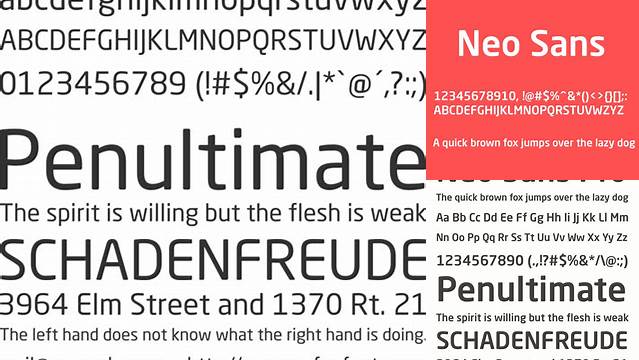
Neo Sans Font Free: Top Alternatives & Usage Guide
Neo Sans is a widely recognized and respected typeface, known for its clean, modern, and highly legible design. It has become a favorite among designers for a variety of applications, from corporate branding to web design. However, its commercial licensing can be a barrier for some users. In this comprehensive guide, we will explore the characteristics of Neo Sans, discuss its typical uses, and, most importantly, delve into free and accessible alternatives that capture its essence.
Understanding Neo Sans: Design and Applications
Neo Sans, with its neutral and contemporary aesthetic, is a sans-serif typeface that exudes professionalism and clarity. This makes it a versatile choice for a broad range of design projects. Its clean lines and open forms contribute to excellent readability, whether in print or on digital screens. The font family includes various weights and styles, providing designers with flexibility to create visual hierarchy and emphasis within their designs.
Key Characteristics of Neo Sans
When we talk about Neo Sans, several key design elements contribute to its unique appeal. First and foremost is its geometric structure. The letterforms are based on simple shapes, giving the font a clean and modern appearance. Secondly, the consistent stroke weight throughout the characters enhances readability. The open counters (the enclosed or partially enclosed negative space in letters like 'a', 'e', 'p', and 'd') also play a crucial role in making the font highly legible, even at smaller sizes. Finally, Neo Sans has a relatively tall x-height, which refers to the height of lowercase letters relative to the cap height. This feature further improves readability and gives the font a balanced and harmonious look.
Common Applications of Neo Sans
Considering its characteristics, Neo Sans finds applications in a wide array of design contexts. In the realm of corporate branding, its professional and clean appearance makes it a popular choice for logos, business cards, and other identity materials. Many companies use Neo Sans to project an image of modernity and reliability. In the field of web design, the font's excellent legibility on screens makes it ideal for body text, headlines, and navigation menus. Its versatility ensures a seamless user experience across various devices and screen sizes. In the publishing industry, Neo Sans is often used for magazines, books, and reports, where readability is paramount. Its clear and neutral design ensures that the text is easy on the eyes, allowing readers to focus on the content. Furthermore, in environmental design, Neo Sans is employed for signage and wayfinding systems, where clear communication is essential. Its distinct letterforms and excellent readability make it effective in guiding people in various environments.
The Need for Free Alternatives
Top Free Alternatives to Neo Sans
Finding a free font that perfectly matches Neo Sans can be challenging, but several excellent alternatives capture its essence and offer similar characteristics. These fonts provide a balance of modern aesthetics, legibility, and versatility, making them suitable for a wide range of design projects. Let's explore some of the top contenders.
1. Montserrat
Montserrat is a widely acclaimed sans-serif typeface designed by Julieta Ulanovsky. Inspired by the urban typography of the Montserrat neighborhood in Buenos Aires, it embodies a modern and geometric design, much like Neo Sans. Its clean lines, balanced proportions, and excellent readability make it a popular choice for both web and print projects. Montserrat is available in a variety of weights, from thin to black, providing designers with ample flexibility to create visual hierarchy and emphasis. Whether you're working on a website, a logo, or a printed brochure, Montserrat offers a versatile and elegant solution. Its open-source license allows for free usage in personal and commercial projects, making it a highly accessible alternative to Neo Sans.
2. Open Sans
Open Sans, designed by Steve Matteson, is another fantastic free alternative. This humanist sans-serif typeface was commissioned by Google and is known for its neutral yet friendly appearance. Open Sans is optimized for legibility across print, web, and mobile interfaces, making it an excellent choice for body text and user interfaces. Its open forms and clear letter shapes ensure that text remains readable even at small sizes. The font family includes a range of weights and styles, including italic versions, giving designers the tools they need to create visually engaging and accessible designs. Open Sans is released under the Apache License 2.0, which permits free use, modification, and distribution, making it a practical and cost-effective alternative to Neo Sans.
3. Lato
Lato, designed by Ćukasz Dziedzic, is a sans-serif typeface that strikes a balance between warmth and neutrality. Its semi-rounded details give it a friendly and approachable feel, while its strong structure ensures legibility. Lato is available in a wide range of weights and styles, making it highly versatile for various design applications. It performs exceptionally well in both headlines and body text, and its elegant letterforms add a touch of sophistication to any project. Lato is licensed under the Open Font License, allowing for free use in personal and commercial projects, making it a compelling alternative to Neo Sans. Its balanced design and broad range of styles make it a favorite among designers seeking a versatile and contemporary typeface.
4. Roboto
Roboto, designed by Christian Robertson, is a neo-grotesque sans-serif typeface family developed by Google. It is the system font for Android and is widely used across Google products and services. Roboto combines a mechanical skeleton with largely geometric forms, resulting in a modern and highly legible typeface. Its smooth curves and open forms enhance readability, making it suitable for both digital and print media. Roboto is available in a variety of weights and styles, including condensed versions, providing designers with a comprehensive toolkit for typography. Licensed under the Apache License 2.0, Roboto is free to use in personal and commercial projects, making it an excellent alternative to Neo Sans for those seeking a versatile and widely recognized typeface.
5. Nunito Sans
Nunito Sans, designed by Jacques Le Bailly, is a sans-serif typeface known for its rounded terminals, giving it a friendly and approachable appearance. It is an extended version of the original Nunito font, which was initially designed as a display font. Nunito Sans is highly legible and works well in a variety of design contexts, from websites to printed materials. Its rounded letterforms add a touch of warmth and playfulness, making it a great choice for projects that require a friendly and inviting tone. Nunito Sans is available in a range of weights, providing designers with flexibility in their typographic choices. Licensed under the Open Font License, it is free to use in both personal and commercial projects, making it a valuable alternative to Neo Sans for designers seeking a modern and approachable typeface.
Comparing Alternatives: Which Font to Choose?
Choosing the right alternative to Neo Sans depends on the specific needs and goals of your project. Each of the fonts we've discussedâMontserrat, Open Sans, Lato, Roboto, and Nunito Sansâoffers a unique blend of characteristics that make it suitable for different applications. To make an informed decision, let's compare these alternatives based on key factors such as aesthetics, legibility, versatility, and specific use cases.
Aesthetics and Tone
The aesthetic appeal of a font plays a crucial role in conveying the right message and creating the desired mood. Montserrat exudes a modern and geometric elegance, making it ideal for projects that require a sophisticated and contemporary look. Its strong geometric forms and clean lines make it a versatile choice for corporate branding, web design, and print materials. Open Sans, on the other hand, has a neutral yet friendly appearance. Its humanist design and open forms give it a welcoming feel, making it suitable for body text and user interfaces where readability is paramount. Lato strikes a balance between warmth and neutrality, thanks to its semi-rounded details. It's a versatile font that works well in a variety of contexts, from headlines to body text, and its elegant letterforms add a touch of sophistication. Roboto combines a mechanical skeleton with geometric forms, resulting in a modern and highly legible typeface. Its smooth curves and open forms make it a solid choice for both digital and print media. Nunito Sans stands out with its rounded terminals, which give it a friendly and approachable appearance. This makes it an excellent choice for projects that require a warm and inviting tone.
Legibility and Readability
Legibility, which refers to the ease with which individual characters can be distinguished, and readability, which refers to the comfort and speed with which text can be read in a continuous flow, are critical factors in typography. All the alternatives we've discussed excel in these areas, but each has its strengths. Open Sans is specifically designed for legibility across print, web, and mobile interfaces. Its open forms and clear letter shapes ensure that text remains readable even at small sizes. Roboto is also highly legible, thanks to its smooth curves and open forms. It is widely used as a system font for Android and across Google products, attesting to its excellent readability. Montserrat maintains good legibility with its clean lines and balanced proportions, making it suitable for a variety of applications. Latoâs strong structure and semi-rounded details contribute to its legibility, making it a versatile choice for both headlines and body text. Nunito Sans, with its rounded terminals, offers a slightly softer and more approachable feel, while still maintaining good legibility.
Versatility and Use Cases
The versatility of a font refers to its ability to perform well in various design contexts and applications. Montserrat is highly versatile and works well for corporate branding, logos, websites, and print materials. Open Sans is particularly well-suited for body text and user interfaces, thanks to its excellent legibility. Latoâs balanced design makes it a great choice for both headlines and body text, and its wide range of weights and styles adds to its versatility. Roboto is a comprehensive typeface family that works well in both digital and print media, making it suitable for a wide range of projects. Nunito Sans is excellent for projects that require a friendly and inviting tone, such as websites, children's books, and marketing materials.
Making the Right Choice
Ultimately, the choice of which font to use as an alternative to Neo Sans depends on your specific project requirements. Consider the aesthetic you want to convey, the context in which the font will be used, and the desired level of legibility. By evaluating these factors, you can select the font that best aligns with your goals and ensures a successful design outcome. Whether you opt for the modern elegance of Montserrat, the friendly neutrality of Open Sans, the balanced versatility of Lato, the robust legibility of Roboto, or the approachable warmth of Nunito Sans, you'll find that these free alternatives offer a wealth of typographic possibilities.
Implementing Free Fonts in Your Projects
Once you've chosen the perfect free alternative to Neo Sans, the next step is to implement it effectively in your projects. This involves not only downloading and installing the font but also understanding how to use it in various design software and web environments. Let's explore the practical aspects of implementing free fonts to ensure a seamless integration into your workflow.
Downloading and Installing Fonts
The first step in using a free font is to download it from a reputable source. Popular websites like Google Fonts, Font Squirrel, and DaFont offer a vast selection of free fonts, including the alternatives we discussed earlier. When downloading fonts, it's essential to ensure that you are obtaining them from a reliable source to avoid potential security risks. Once you've downloaded the font files, which are typically in .OTF (OpenType Font) or .TTF (TrueType Font) format, the installation process is straightforward.
On Windows, you can install a font by right-clicking on the font file and selecting "Install." Alternatively, you can copy the font file to the Fonts folder in the Windows directory (usually C:\Windows\Fonts). On macOS, you can install a font by double-clicking the font file, which will open Font Book. Then, click the "Install Font" button. Once the font is installed, it will be available for use in all applications on your computer.
Using Fonts in Design Software
Most design software, such as Adobe Photoshop, Illustrator, and InDesign, automatically recognizes installed fonts. To use a font in your design, simply select the text tool, choose the desired font from the font menu, and start typing. When working with multiple fonts, it's crucial to establish a clear typographic hierarchy to ensure readability and visual appeal. Use different font weights and styles to create emphasis and guide the reader's eye. For example, you might use a bold weight for headlines and a regular weight for body text. Additionally, pay attention to letter spacing (tracking) and line height (leading) to optimize the readability of your text.
Implementing Fonts on the Web
Using free fonts on the web involves a slightly different approach. The most common method is to use CSS @font-face rule to embed the font files directly into your website. However, the easiest way to use free fonts on the web is through services like Google Fonts. Google Fonts hosts a vast library of open-source fonts that can be easily integrated into your website by adding a simple link to your HTML file. For example, to use Open Sans, you would add the following line to the <head> section of your HTML:
<link rel="stylesheet" href="https://fonts.googleapis.com/css2?family=Open+Sans:wght@400;700&display=swap">
Then, you can apply the font to your website elements using CSS:
body {
font-family: 'Open Sans', sans-serif;
}
When using web fonts, it's important to consider performance. Large font files can slow down your website's loading time, which can negatively impact user experience and SEO. To optimize performance, use only the font weights and styles that you need, and consider using font formats like WOFF and WOFF2, which are optimized for the web.
Best Practices for Font Usage
- Establish a Clear Typographic Hierarchy: Use different font sizes, weights, and styles to create visual hierarchy and guide the reader's eye.
- Limit the Number of Fonts: Using too many fonts can create a cluttered and unprofessional look. Stick to two or three fonts at most.
- Pay Attention to Legibility: Choose fonts that are easy to read, especially for body text. Consider factors like x-height, letter spacing, and line height.
- Optimize for Different Devices: Ensure that your fonts look good on a variety of screen sizes and devices. Use responsive typography techniques to adjust font sizes and line heights as needed.
- Test Your Font Choices: Always test your font choices in different contexts to ensure they are effective and legible.
Conclusion: Embracing Free Alternatives to Neo Sans
In conclusion, while Neo Sans is a highly regarded typeface known for its modern and legible design, its commercial licensing can be a barrier for many users. Fortunately, several excellent free alternatives capture the essence of Neo Sans and offer similar characteristics. Fonts like Montserrat, Open Sans, Lato, Roboto, and Nunito Sans provide designers with a wealth of options for achieving a professional and contemporary look without incurring licensing fees.
By understanding the key characteristics of Neo Sans and comparing them to the features of these alternatives, you can make an informed decision about which font best suits your project requirements. Whether you're working on corporate branding, web design, or print materials, these free fonts offer the versatility and legibility you need to create effective and visually appealing designs. Furthermore, by following best practices for font implementation and usage, you can ensure that your chosen font is seamlessly integrated into your workflow and contributes to the overall success of your project.
Embracing free alternatives to commercial fonts not only provides cost savings but also fosters creativity and innovation by democratizing access to high-quality design tools. So, explore the possibilities, experiment with different fonts, and discover the perfect typographic solution for your next project. With the abundance of free and accessible typefaces available today, there's no limit to what you can achieve.